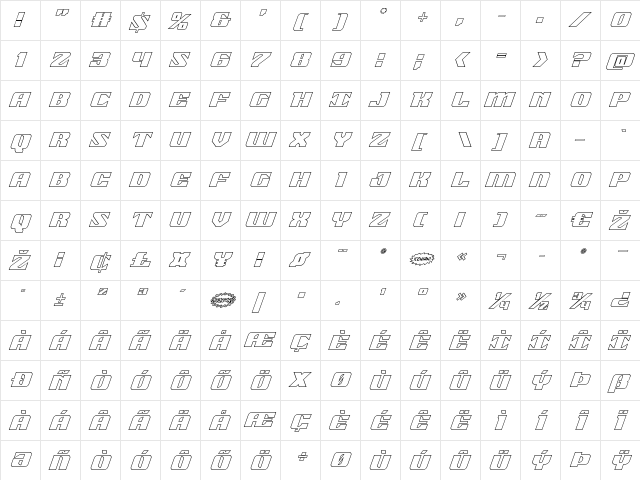
21 Gun Salute Outline Italic Italic
Design Context for 21 Gun Salute Outline Italic Typeface
21 Gun Salute Outline Italic is built around its visual character rather than neutral utility — its distinctive forms are designed to make an impression at display sizes. The slanted form adds forward momentum and visual energy.
Font Pairing: Pair with a clean neutral sans-serif for body copy to let 21 Gun Salute Outline Italic's character lead without overwhelming the composition.
Pro Tip: Use 21 Gun Salute Outline Italic exclusively at display sizes — it was designed to be seen, not read at length. Let a neutral companion handle body copy.